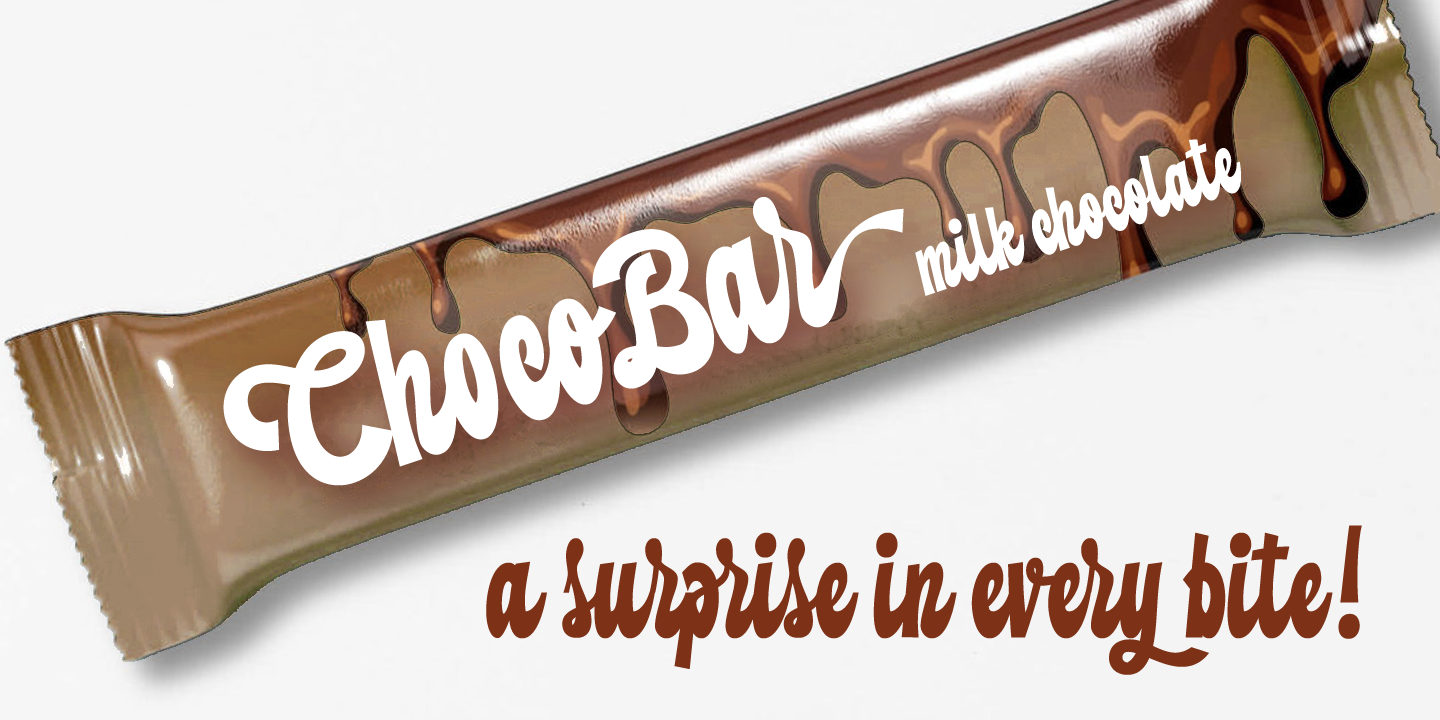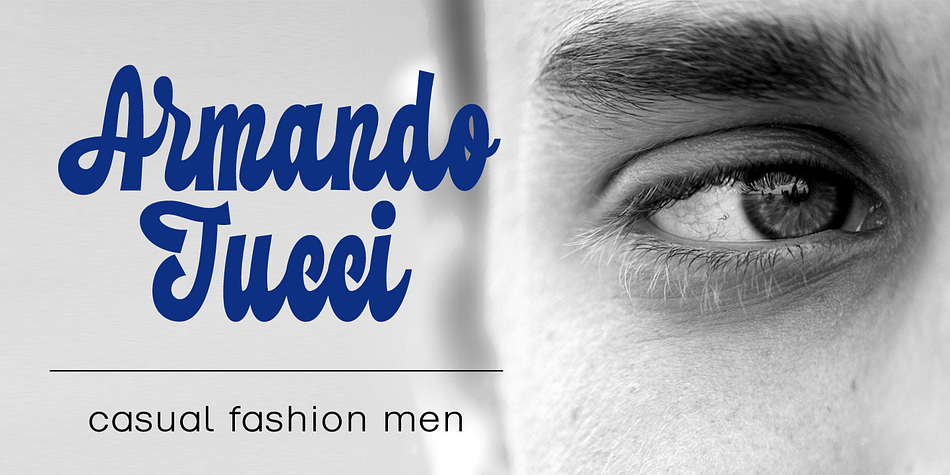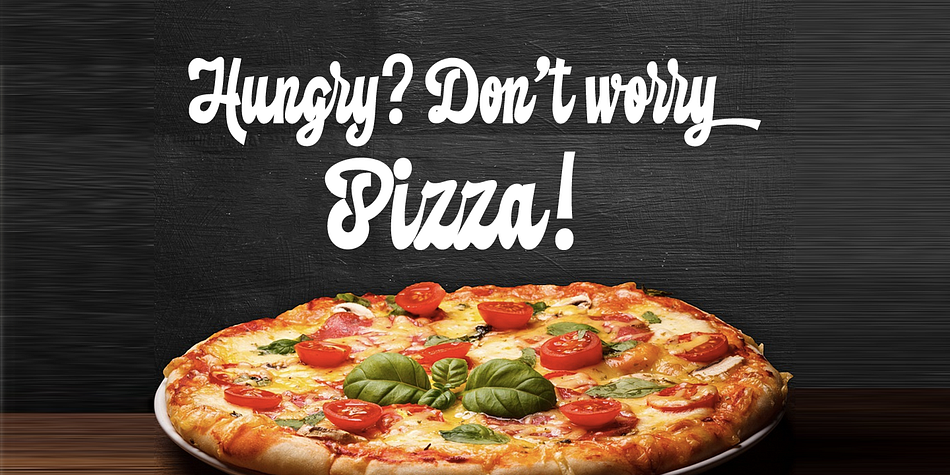
Designed by Carine de Wandeleer, Brabon is a retro and script font published by Eurotypo.
Brabon is a new lettering font designed by Carine de Wandeleer. The Open Type features include swashes, also in capital letters, stylistics and contextual alternates and ligatures. All this makes the text lively and bouncy, without the monotony of obviously repeated letterforms. In addition, we have included some ornaments designed to support the font (access to them through the glyphs palette).
Brabon is doing very well to create titles, logos and posters for brand and packaging, invitations, greeting cards, magazines and book covers, children’s material, fashion and wherever you want. Enjoy it!